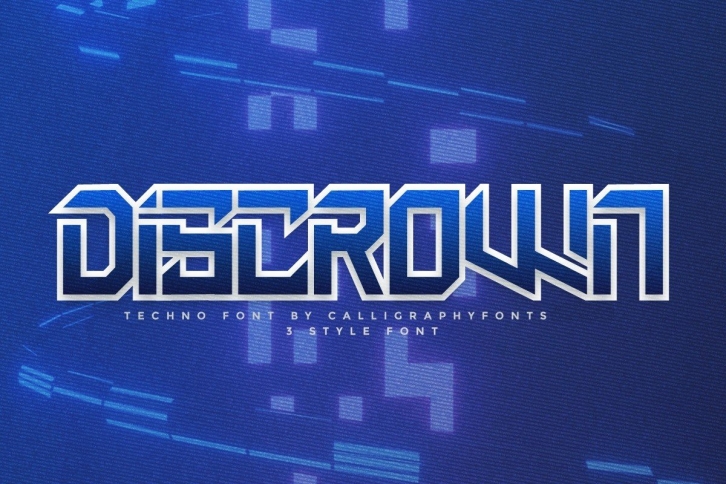
Discrown is a cool, bold and techno looking display font. This font is ideal for writing web designs, business cards, or pretty much anything else that requires a futuristic touch.